Font similar to Newark is a great choice for designers aiming for a modern, professional feel. These substitutes offer a clean aesthetic with strong readability, making them ideal for versatile design applications.
Key Takeaways:
- Based on Newark’s calligraphic look, we can add unique elements to create a whole new vibe.
- Newark font’s alternatives are the key to creating a more harmonious design with similar luxurious touches.
Getting to Know Newark Font
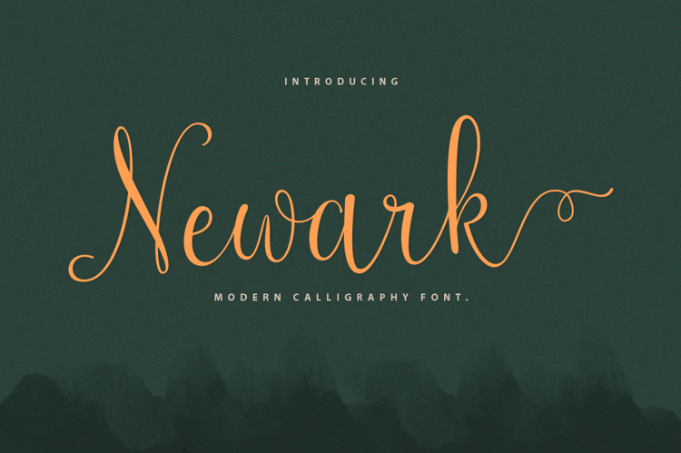
Before we explore the top picks featuring a font similar to Newark, we need to understand its characteristics. Newark is a typeface created by Sizimon Studio in 2020, a foundry established in 2016 specializing in elegant and luxurious fonts.
As a connecting script, Newark beautifies its letterform with slender, smooth lines and, feminine look in a calligraphic approach. Newark can balance stylized typographic flow using grace in various applications.
Font Similar to Newark Font’s Appearance
Let’s explore substitutes for Newark and what differentiates them!
1. Amellate
Amellate differentiates itself by using a signature style, which makes its letterforms more natural and dynamic.
2. Belasty
Also using the calligraphic approach, Belasty chooses more casual looks, discarding the pointy swirls at the ends.
3. Bengoda
Bengoda leans toward the chic and feminine look, even using natural strokes to highlight an intimate feeling.
4. Morneta
With similar ornament intensity, Morneta adds italic looks and a more feminine letterform, focusing on refined curves and harmony.
5. Haimonty
For a font similar to Newark, Haimonty takes the uniform look, creating a highly legible typeface with unexpected swashes.
6. Harmony Adore
Focusing on visual elegance, Harmony Adore takes more condensed letterforms so that it can play more on the wild and elegant swashes.
7. Rosetta Angel
By choosing Rosetta Angel as your typeface, you can introduce Newark’s stroke in an expressive and casual visual.
8. Gracety
Gracety is the perfect option if you’re looking for a light substitution for Newark.
9. Muselint
Muselint opts for a handwritten look, displaying less extreme stroke thickness contrast while presenting a more carefree flow.
10. Restacy
Among our refined and modern fonts, you can tell that Restacy brings a thick sincerity aura, perfect for creating an intimate approach.
11. Lutterya
Creating a unique distinction with its brush look, Lutterya converts the refined Newark look to be more edgy.
12. Bristeny
Bristeny breaks free from any formal notion and goes all out for expressiveness with its light, cute aesthetics.
13. Flavinda
Flavinda can add a fresh, airy vibe to the typical luxurious script aesthetic and instantly become an ornamental element.
14. Brilona
Brilona is a faux script font that didn’t connect the letters, resulting in a unique and more readable visual.
15. San Brainy
For a font similar to Newark, San Brainy is the simplistic option that grants better legibility and nonchalant letterforms.
16. Hesmony
Exploring more unique styles in a font similar to Newark, we got Hesmony, a modern take on the brush script font style.
17. Kastiny
Kastiny has Newark’s writing style but in a more consistent, slender look, making it look more flexible.
18. Jasline
If you’re looking for a more daring, contrasting look, use Jasline. It is a calligraphic script font with an oblique slant and a generous swashes option.
19. Stelly
Compared to Newark, Stelly lingers longer with its thin strokes, creating a sense of space while decorating your design.
20. Raphiola
For you who yearn for a more grotesque and fantastic look, use Raphiola. Rapiola’s script is casual and expressive.
21. Onstay
Onstay excels at creating a sense of movement to your design with its quick brush strokes.
22. Delphia Village
Delphia Village differs from Newark with its little slant and angular ends, although both are exceptionally ornate.
23. Helyna
Helyna takes the extreme way in decorating its letterforms, highlighting intricate swashes while arbitrarily disconnecting letters for legibility.
24. Anthonio
With Anthonio as your Newark substitute, you can display an authoritative and masculine aura.
25. Jesyta
Jesyta adopts the natural, signature style, highlighting soft, elegant curves and a chic persona.
26. Shantina
Just like Newark, Shantina’s letters are also upright and elegant, but Shantina expresses more joyful vibes.
27. Dessthia
Dessthia uses the unique reversed thickness contrast while highlighting modern, refined visuals, focusing on readability.
Why You Should Try a Font Similar to Newark
Fonts influence how content feels, and the Newark style selections above prove that even small typographic tweaks can bring major visual impact. By exploring these substitutes, you/re equipping your work with subtle sophistication and a modern edge that won’t go unnoticed.With our wide thematic font selections, you can take a step closer to a more intimate and successful design. Here at Rantautype Studio, you can always find the little missing piece to create a complete typographic element.